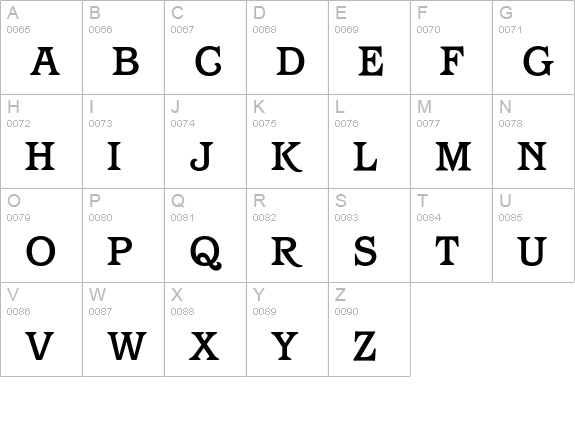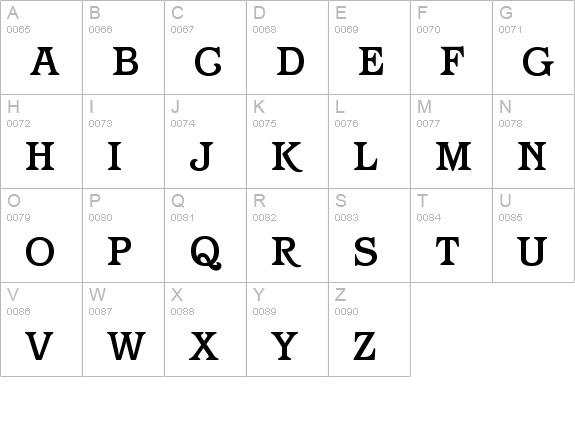
Barcelona* Medium is a balanced, medium-weight variant in the Barcelona* typeface family \xE2\x80\x94 well suited to sub-headlines, navigation, and balanced editorial work.
Barcelona Medium is a versatile and modern font that exudes elegance and sophistication. With its clean lines and balanced proportions, this typeface is perfect for a wide range of design projects, from branding to editorial design. The medium weight of Barcelona adds a touch of boldness without being overpowering, making it a great choice for headers, titles, and other prominent text elements. This font is not only visually appealing but also highly readable, ensuring that your message is effectively communicated to your audience. Barcelona Medium strikes the perfect balance between classic and contemporary, making it a timeless addition to your font collection. And the best part? Barcelona Medium is freely available to download at FontsMarket.com. Whether you're a designer looking to elevate your projects or a business owner seeking a sophisticated font for your branding, Barcelona Medium has got you covered. Download this stunning font today and take your designs to the next level!